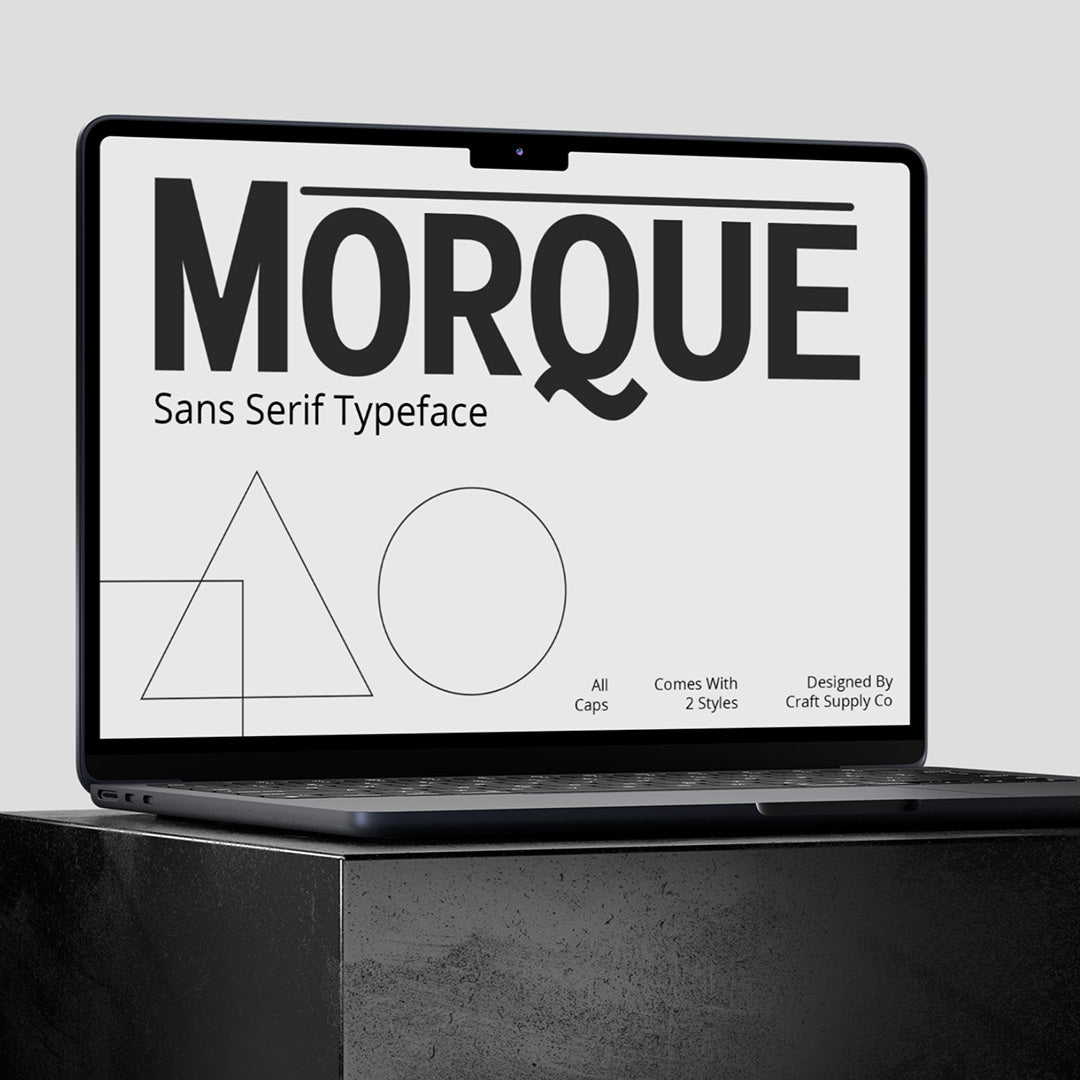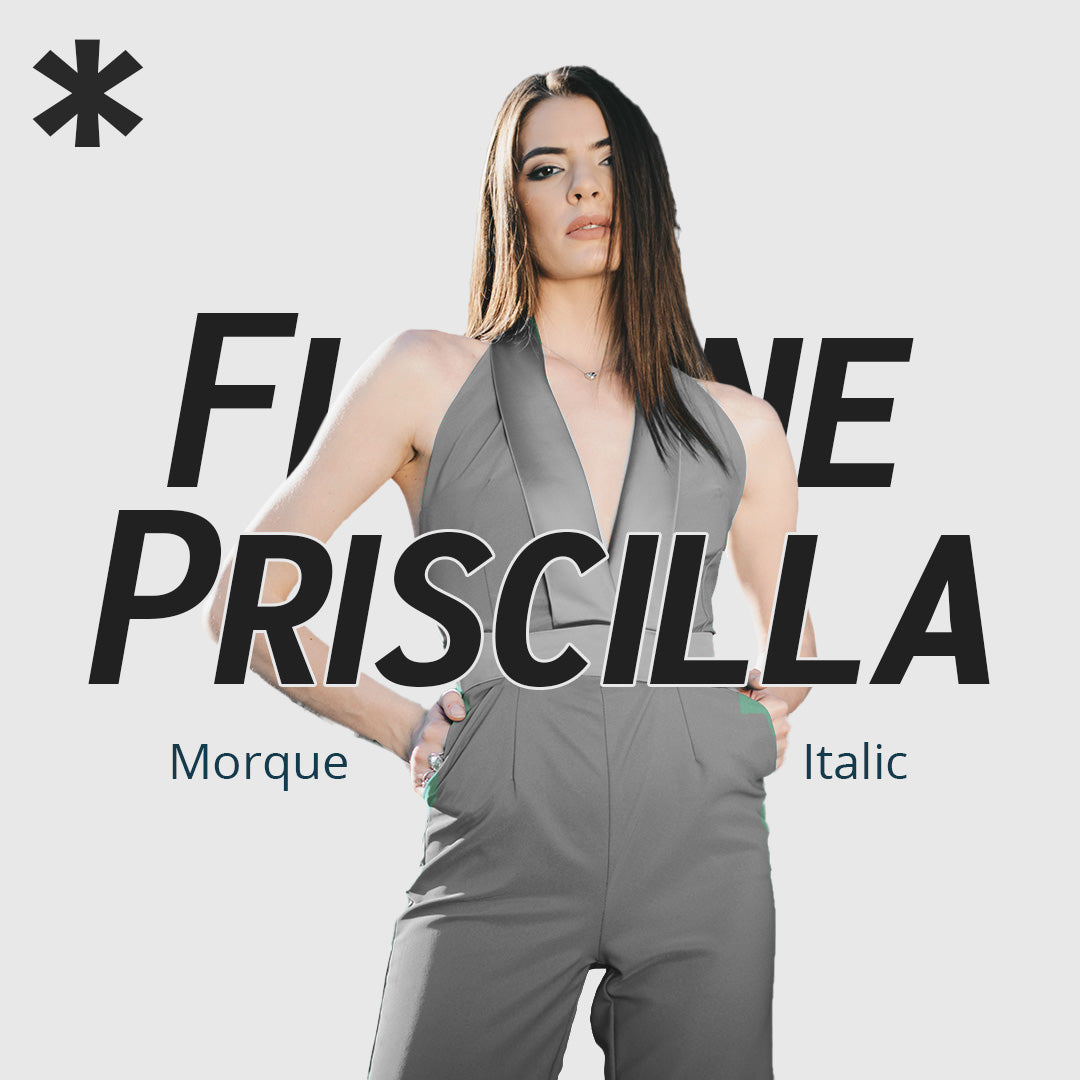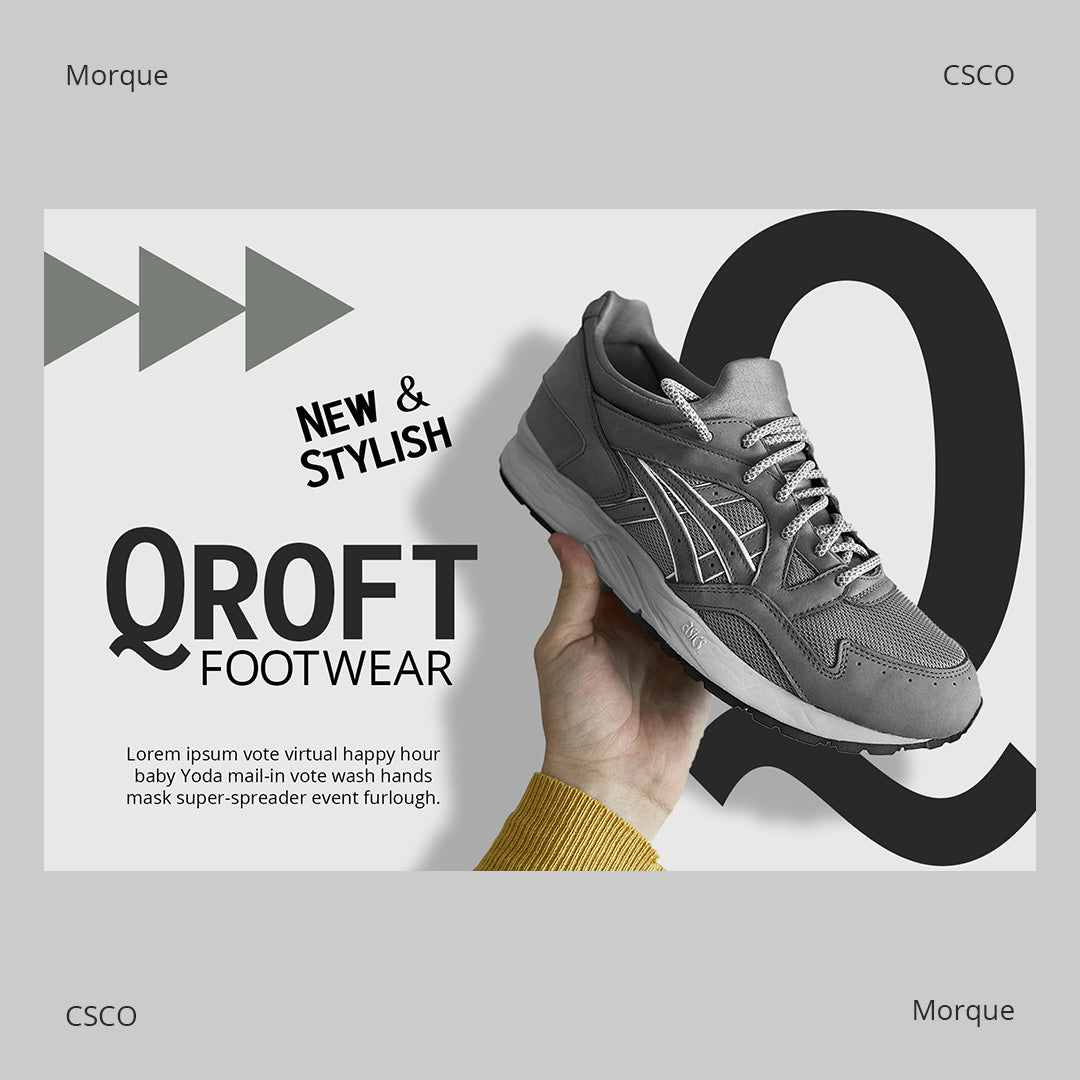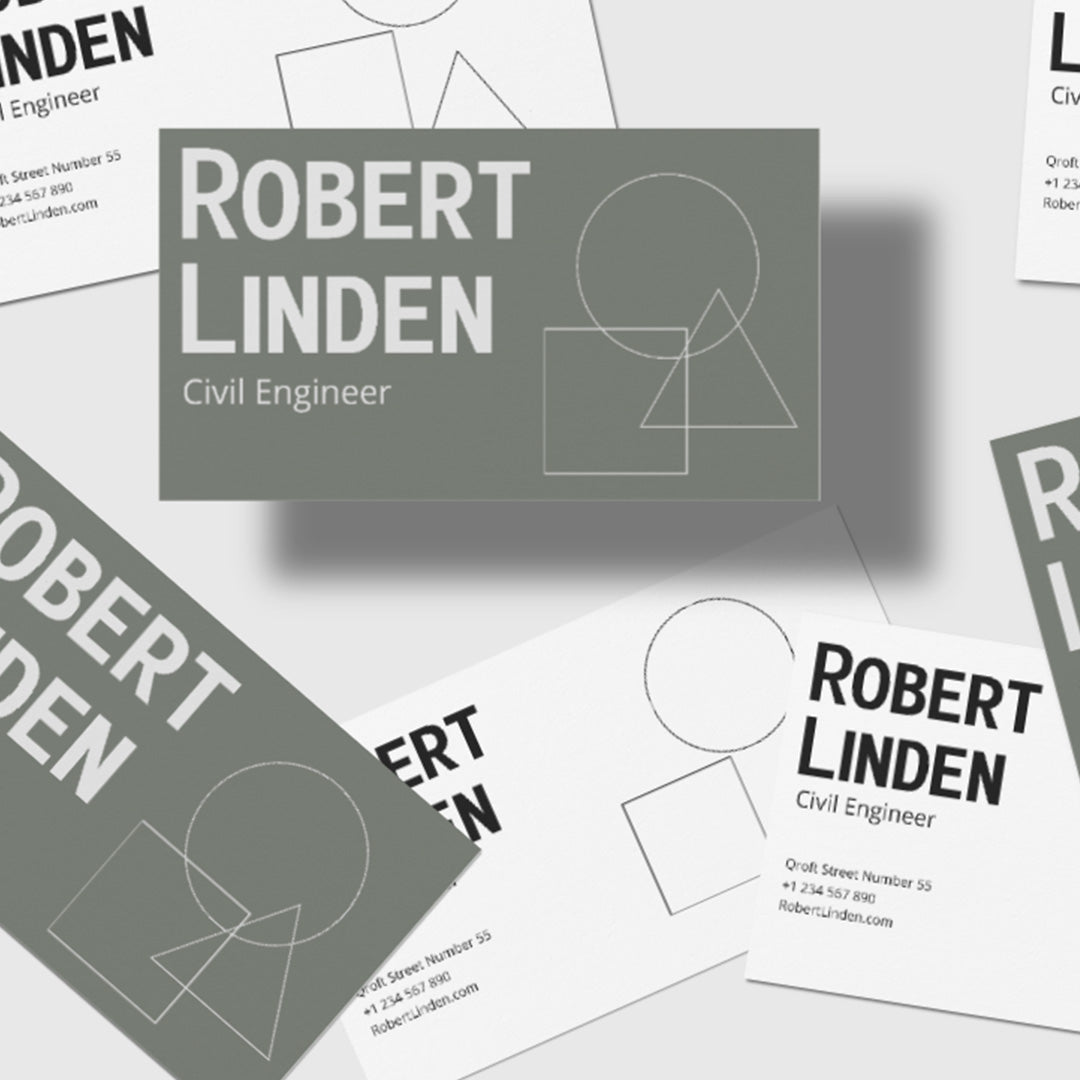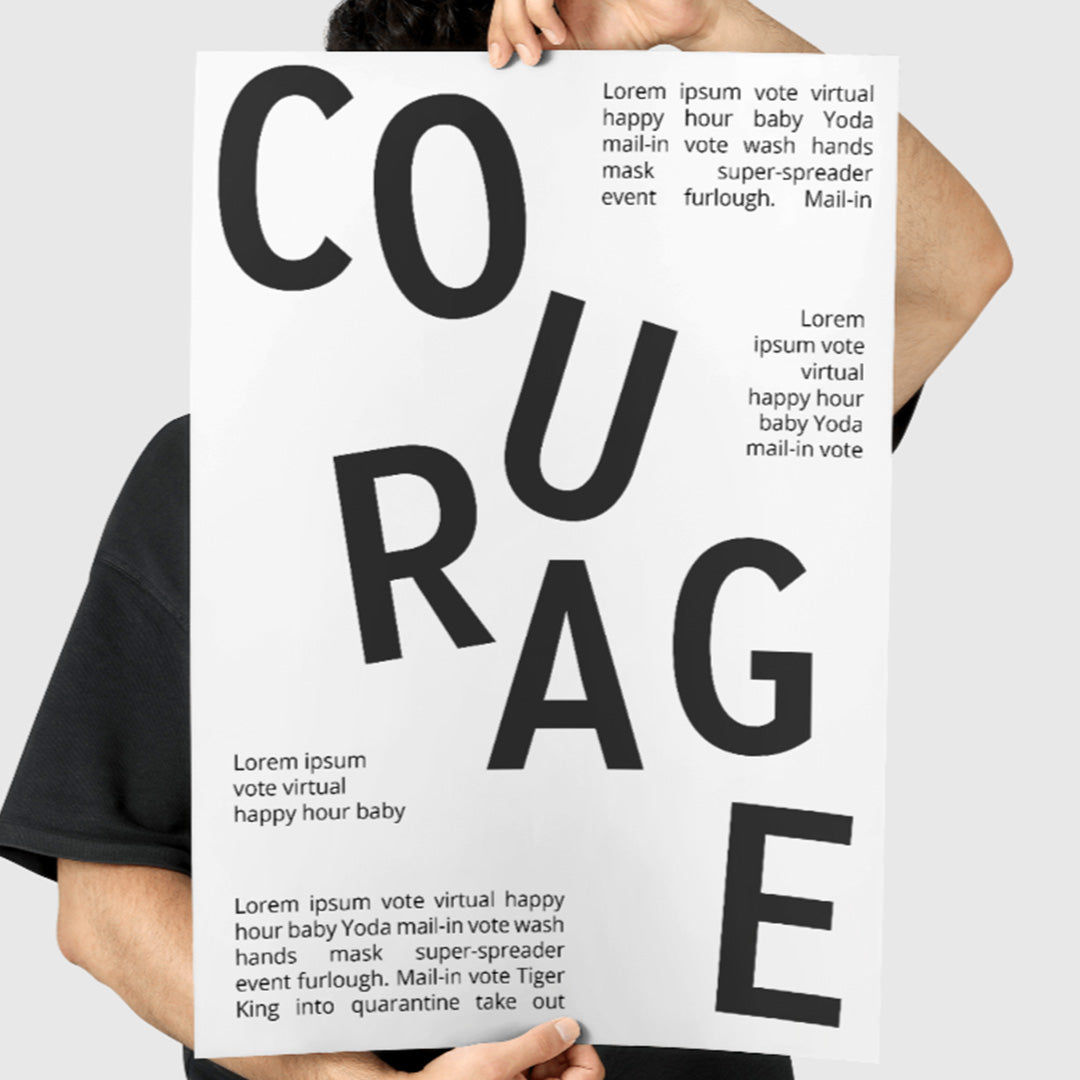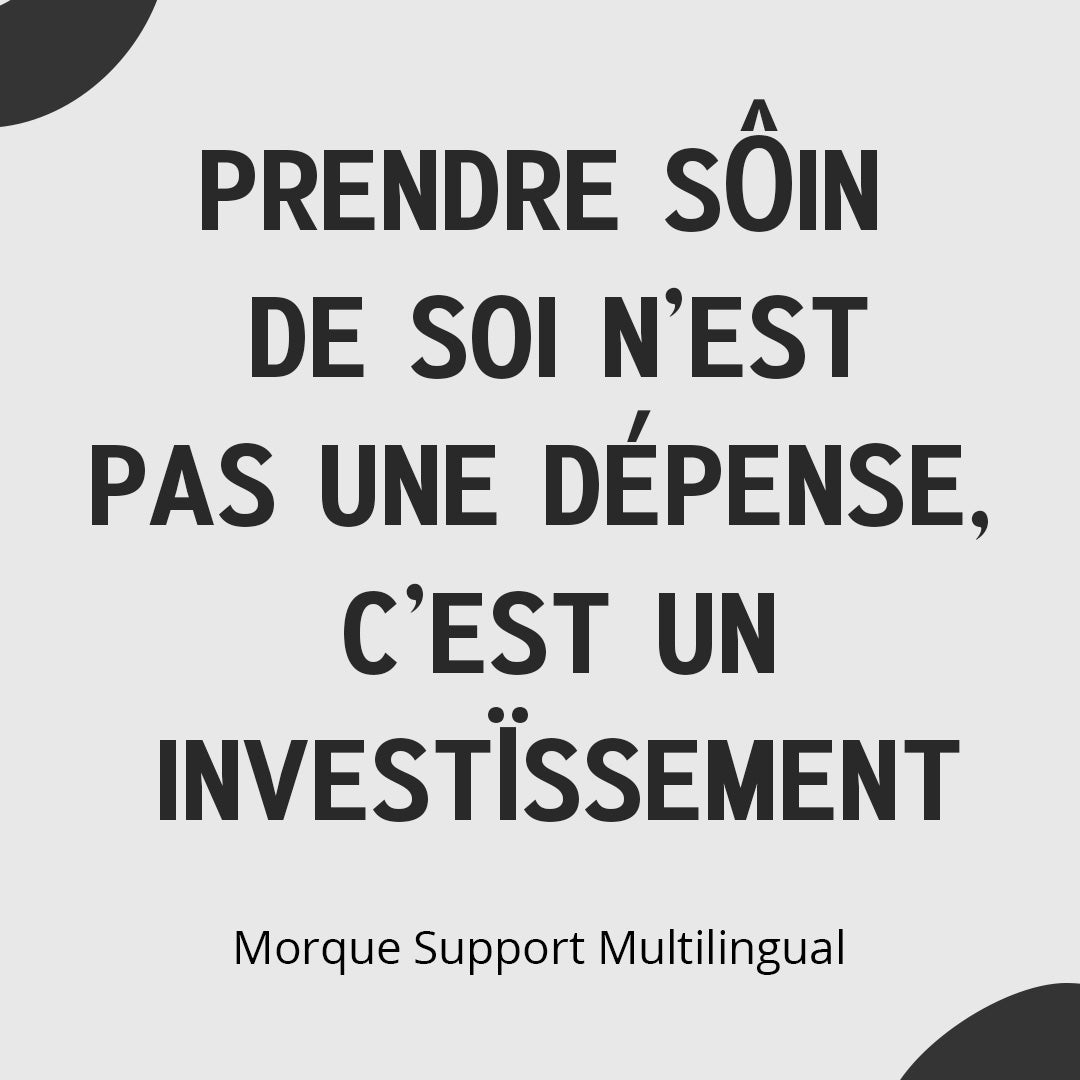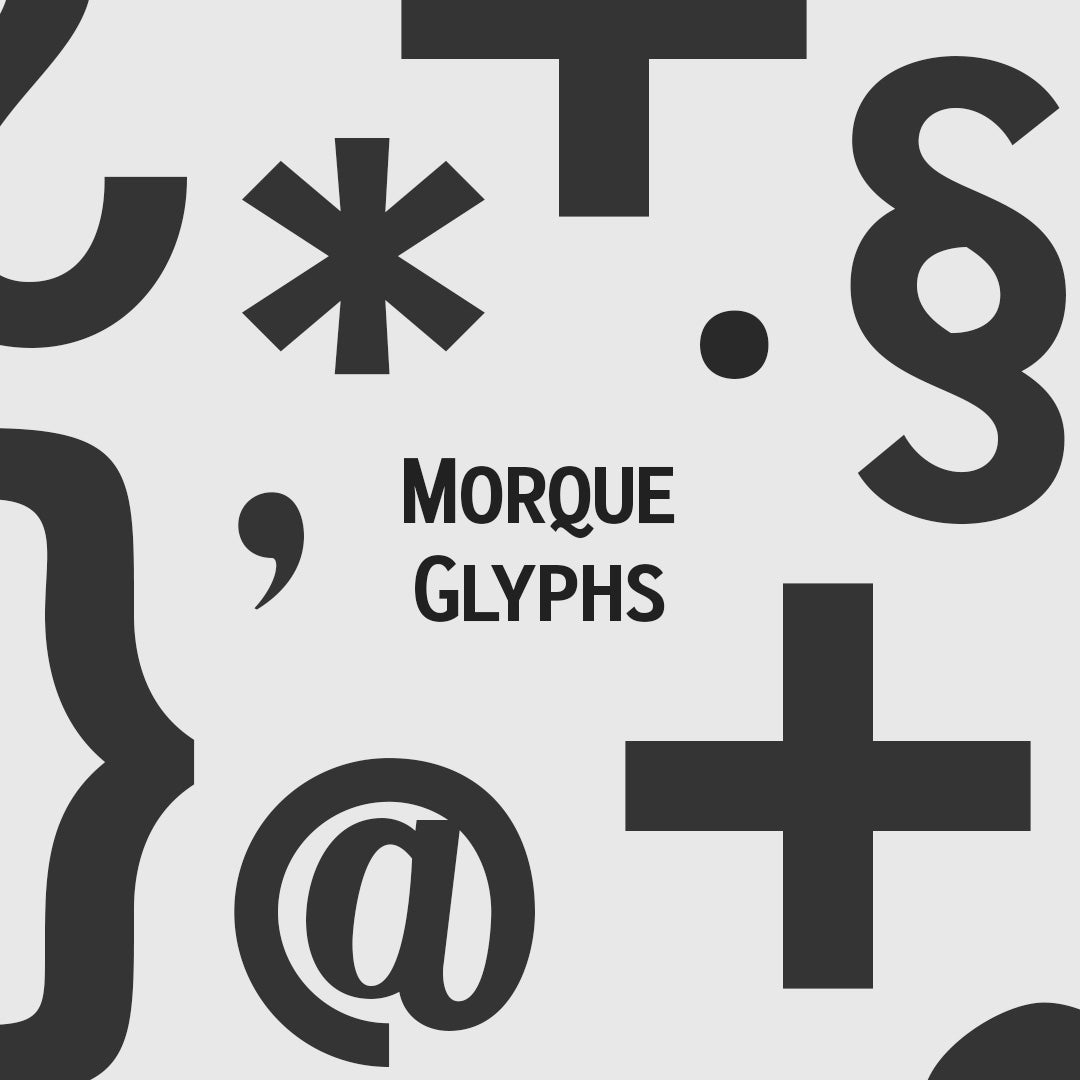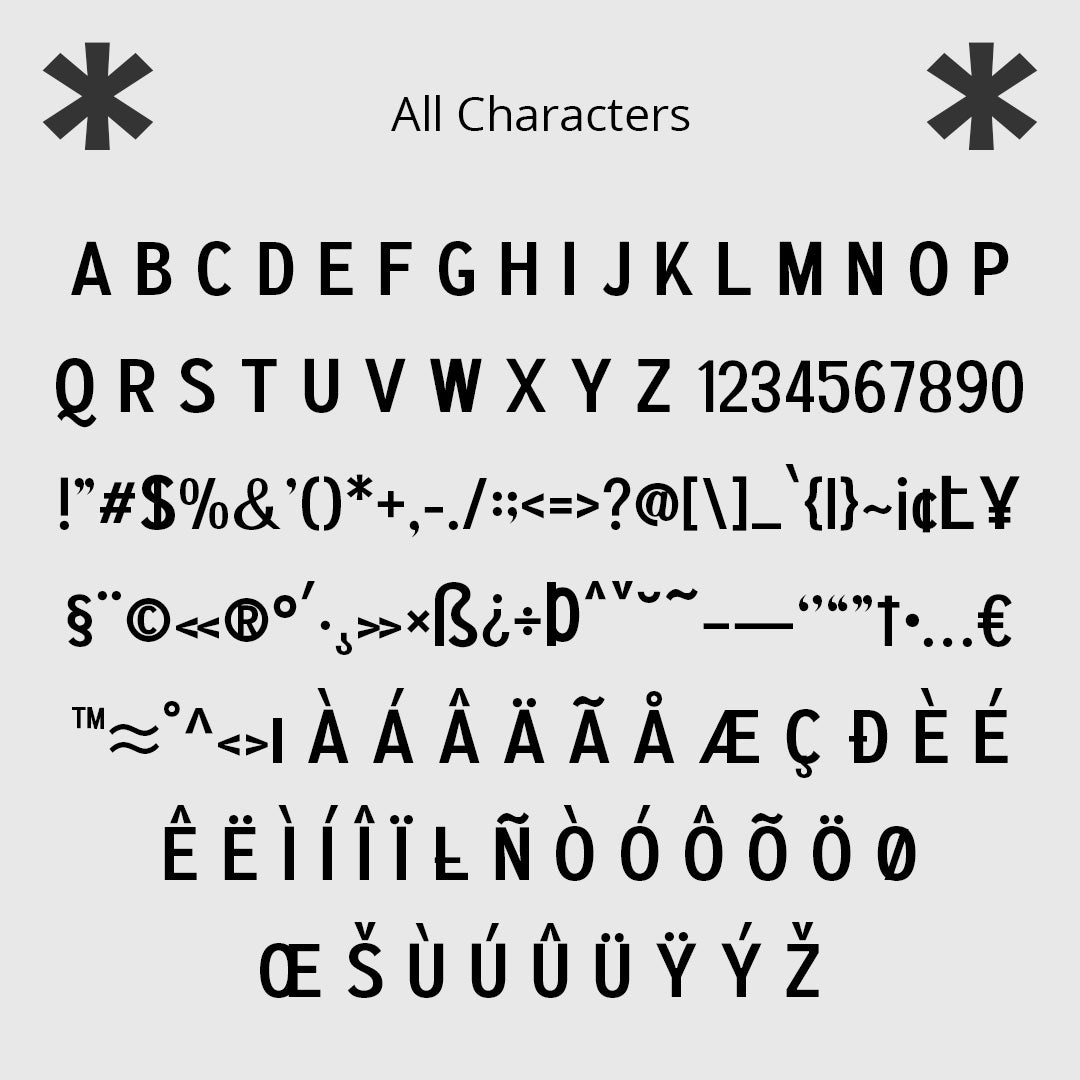
Morque – Sans Serif Font
Morque – Sans Serif Font: Bold and Expressive
Boldness in Every Letter:
Morque – Sans Serif Font stands out with its all caps design. It’s perfect for impactful titles and displays. This font commands attention in any visual space.
Ideal for Titles and Displays:
Morque’s bold structure makes it ideal for titles and visual displays. It enhances the readability of headlines. This font is a go-to for designers aiming for a strong statement.
Contemporary and Versatile:
With a contemporary feel, Morque suits various design needs. It’s versatile for digital and print media. This font seamlessly adapts to different visual contexts, from websites to posters.
User-Friendly for Designers:
Enhancing Visual Impact:
Using Morque elevates the visual impact of any content. Its strong presence enhances brand identities. This font is not just a typeface but a tool for powerful communication.
Morque Regular
Morque Italic
Morque is a bold sans serif font featuring an all caps design, ideal for impactful titles and displays. It includes both regular and italic styles, supports uppercase and lowercase characters, numerals, punctuation, and multilingual accents, making it a versatile choice for various design applications.